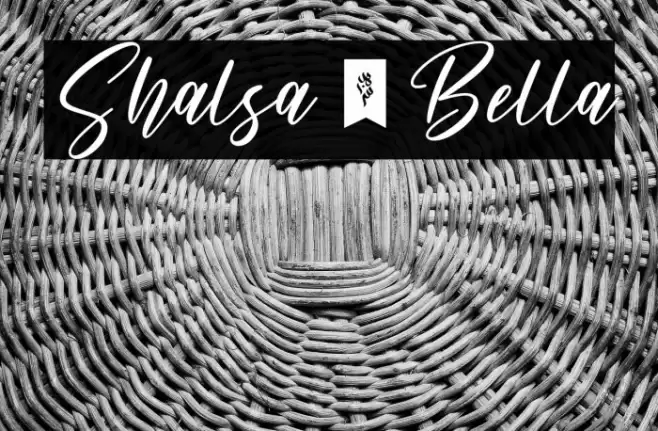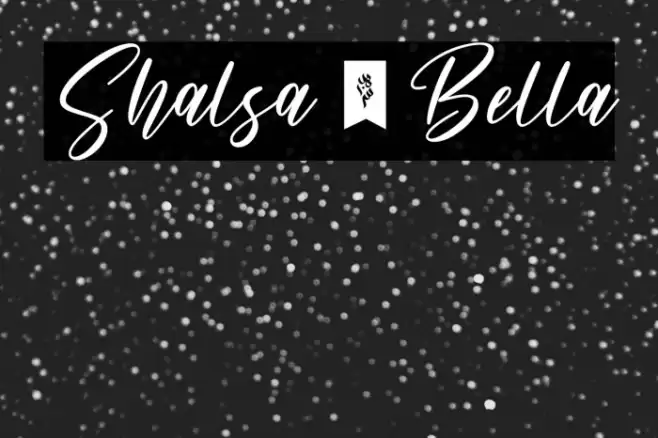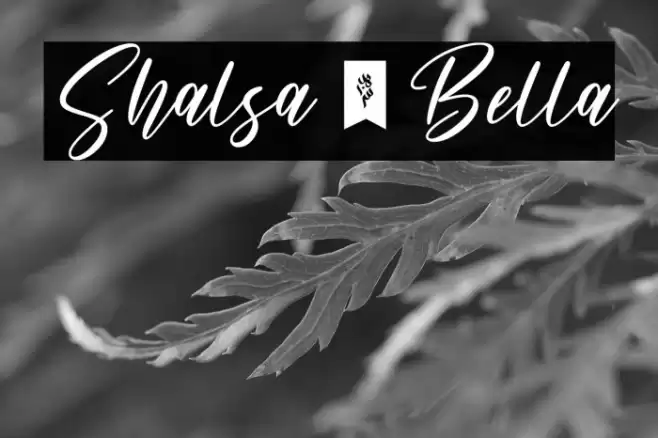
Shalsa_Bella Font
Shalsa_Bella Description
This elegant script font features fluid, connected strokes that give it a handwritten appearance. The uppercase letters are tall and slightly slanted, with smooth curves and a consistent flow. The lowercase letters maintain a similar style, with some letters featuring loops and flourishes that enhance its decorative appeal. The numbers and special characters are designed to match the overall aesthetic, providing a cohesive look. This font is perfect for projects that require a personal touch, such as invitations, greeting cards, and branding materials.
A graceful script font with fluid, connected strokes and a handwritten style from Uncategorized fonts.
- Proposed Projects: Ideal for wedding invitations, greeting cards, branding, and personal stationery.
- Use Case: Logos, Invitations, Greeting Cards